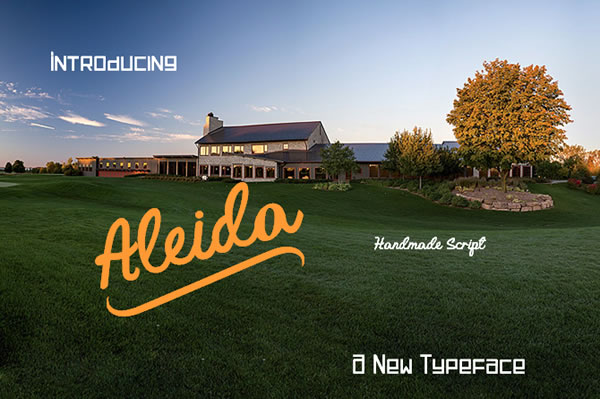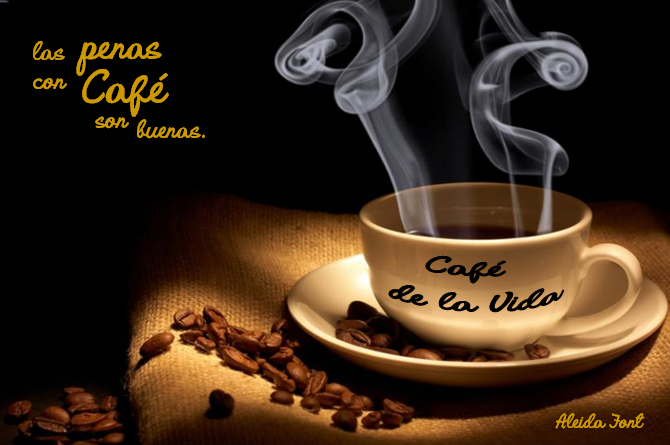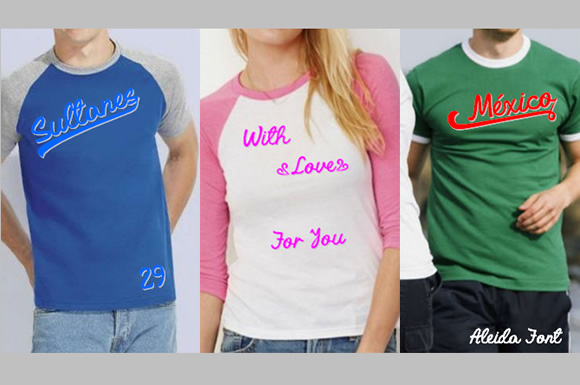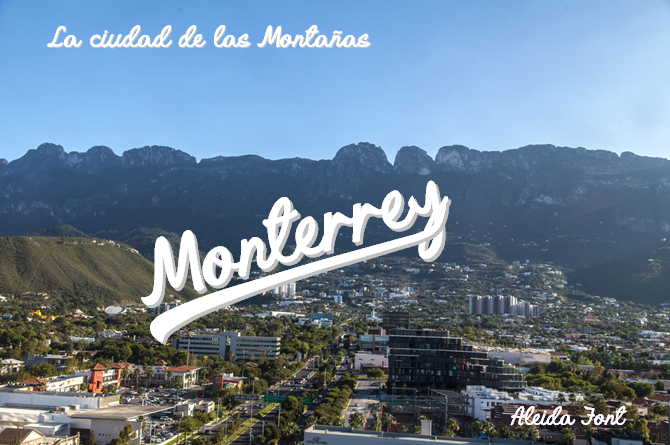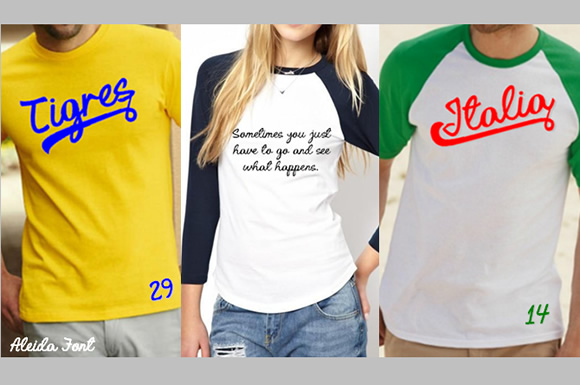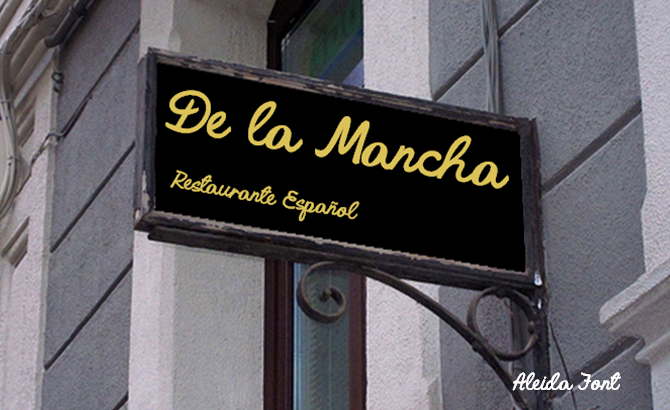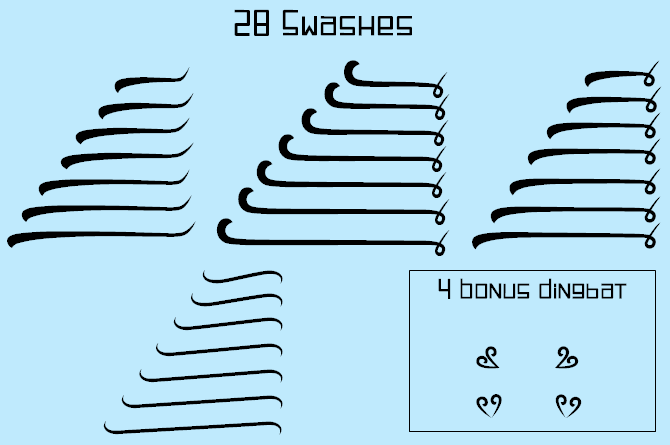
Aleida Font
About Aleida Font
Aleida is a handmade typeface created by Jaime Rangel Castro.
It’s suitable for many types of projects such as logos, posters, apparel printing, labels, quotes,headlines and more.